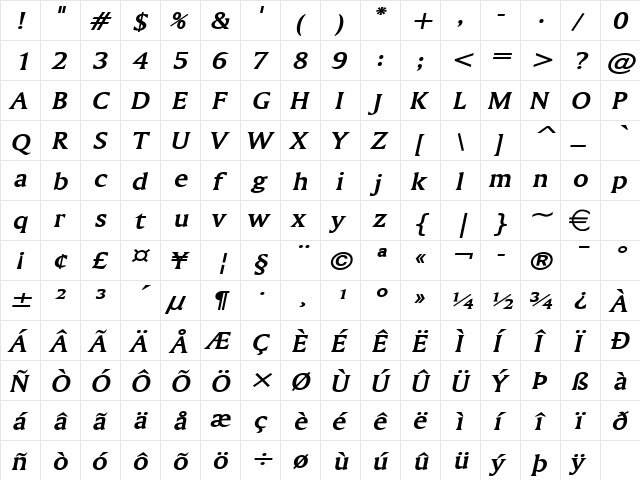
AmerettoWide BoldItalic Font Preview
AmerettoWide BoldItalic
Design Context for AmerettoWide Typeface
AmerettoWide takes a measured approach to typography — its balanced proportions and neutral character make it a reliable workhorse for both digital and print work. The dynamic lean of this cut emphasises speed and emphasis in any layout. Its bold stroke weight gives it real presence on the page.
Pro Tip: Use AmerettoWide for emphasis, pull quotes, and subheadings where its slanted energy can add rhythm to the layout.